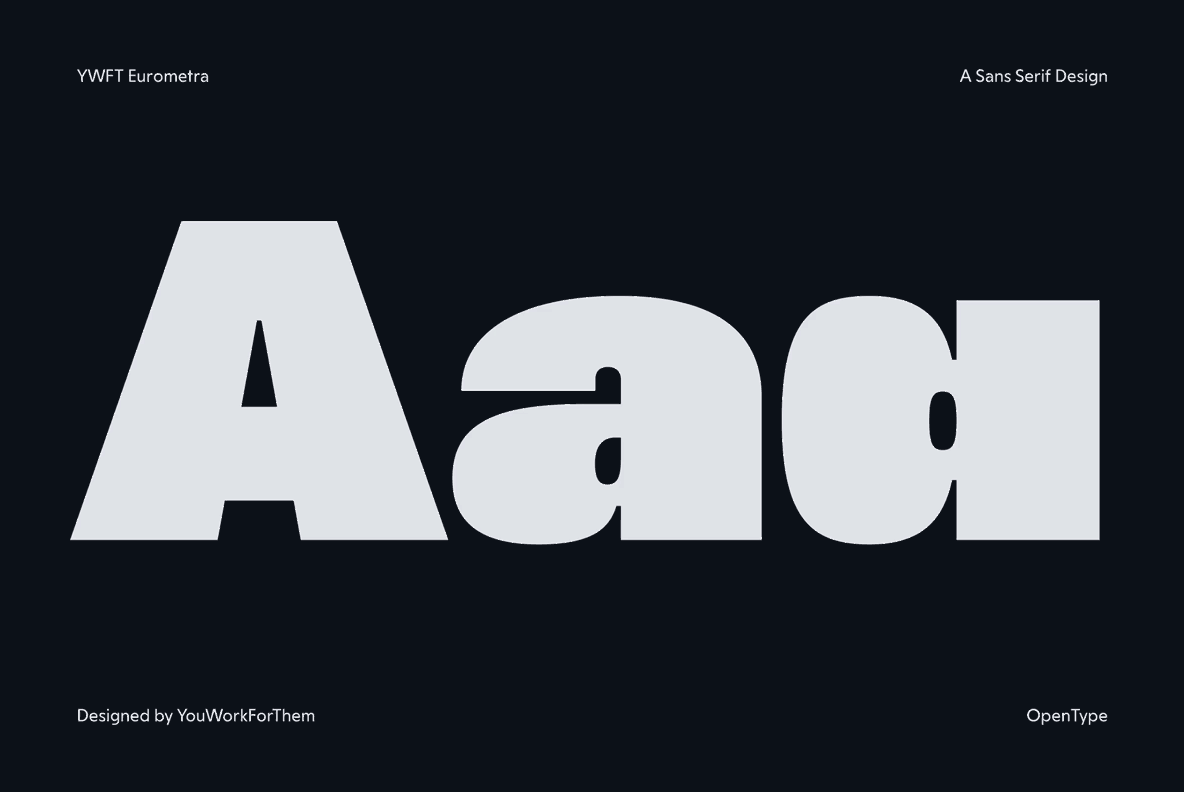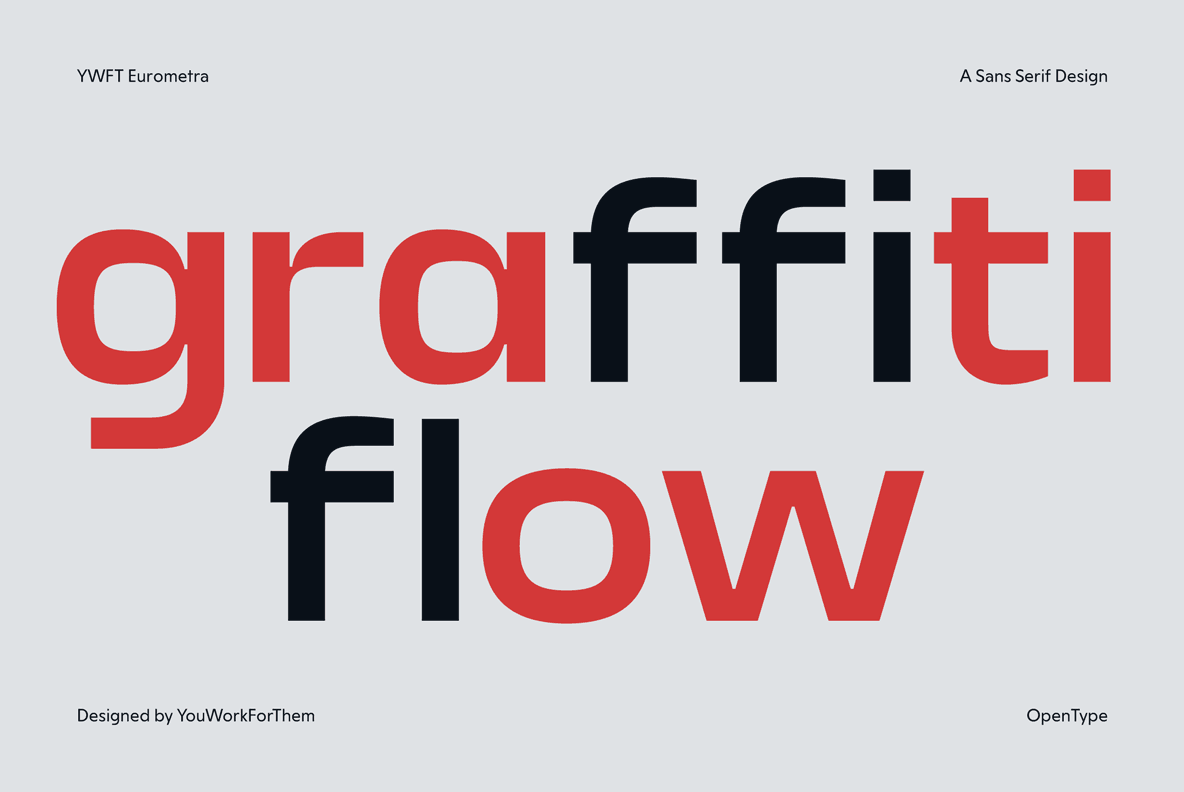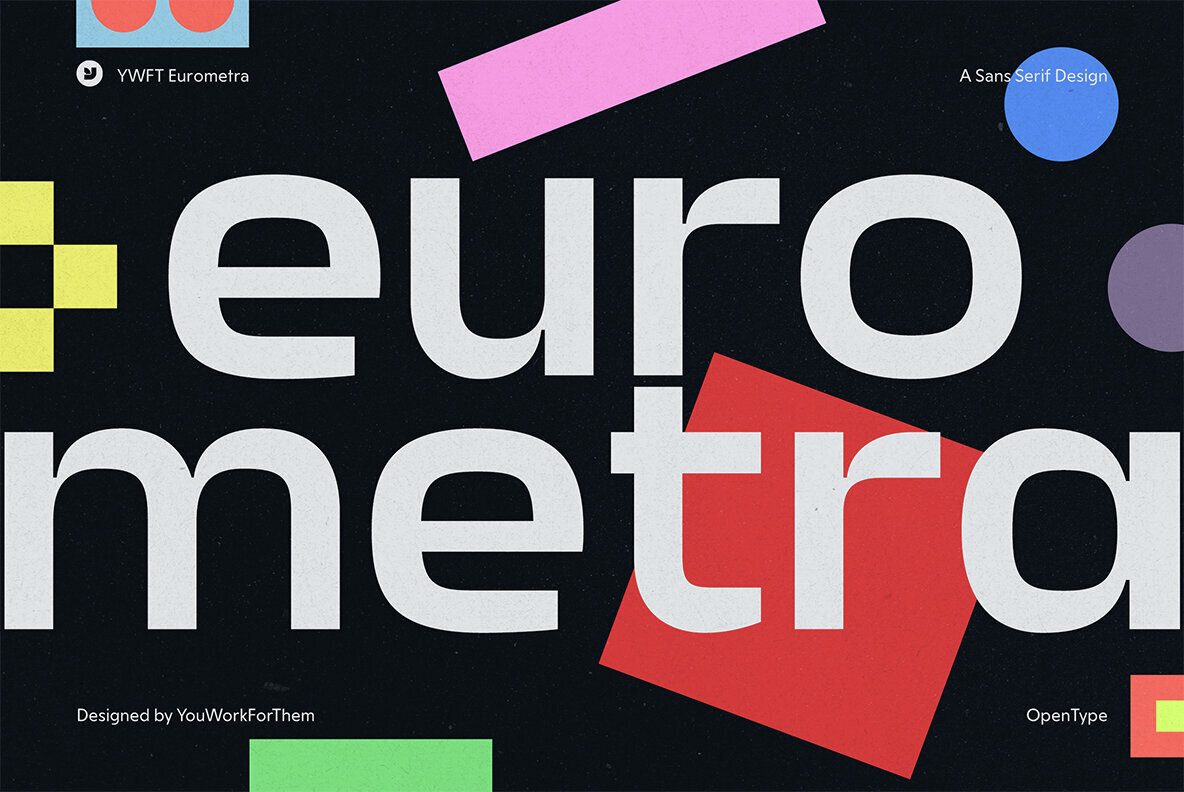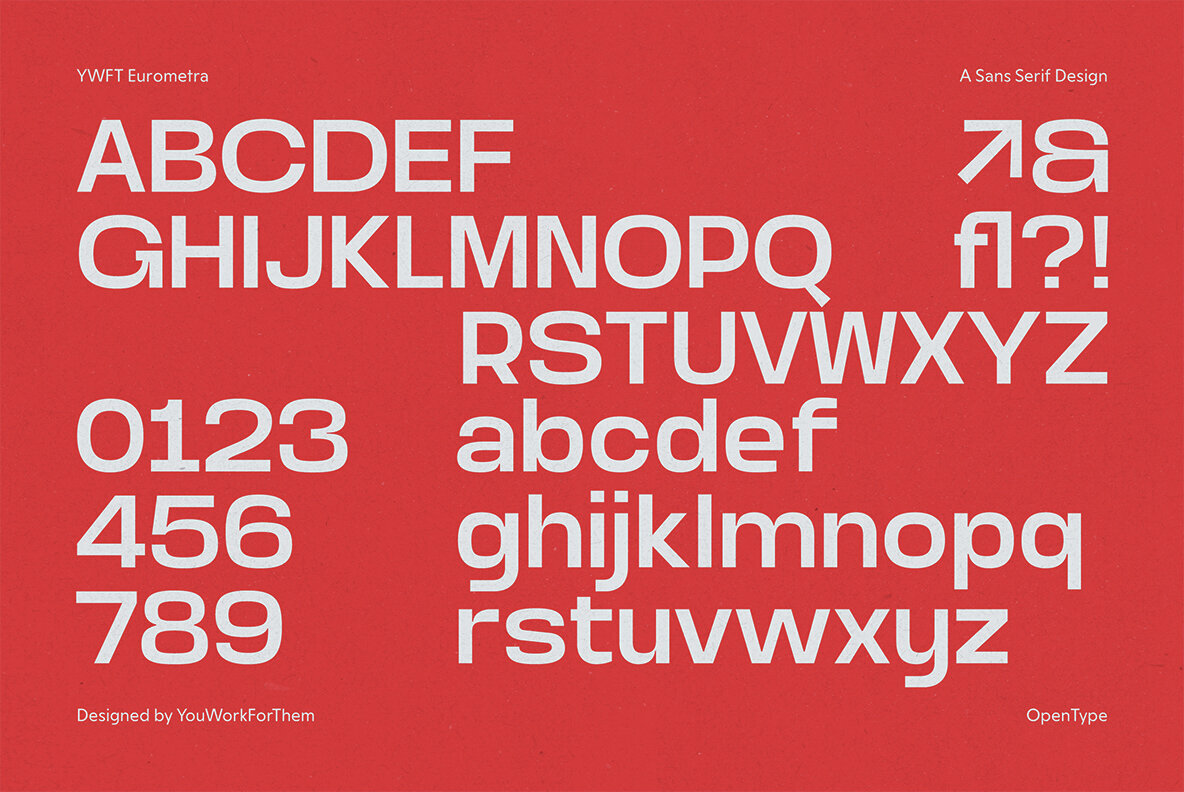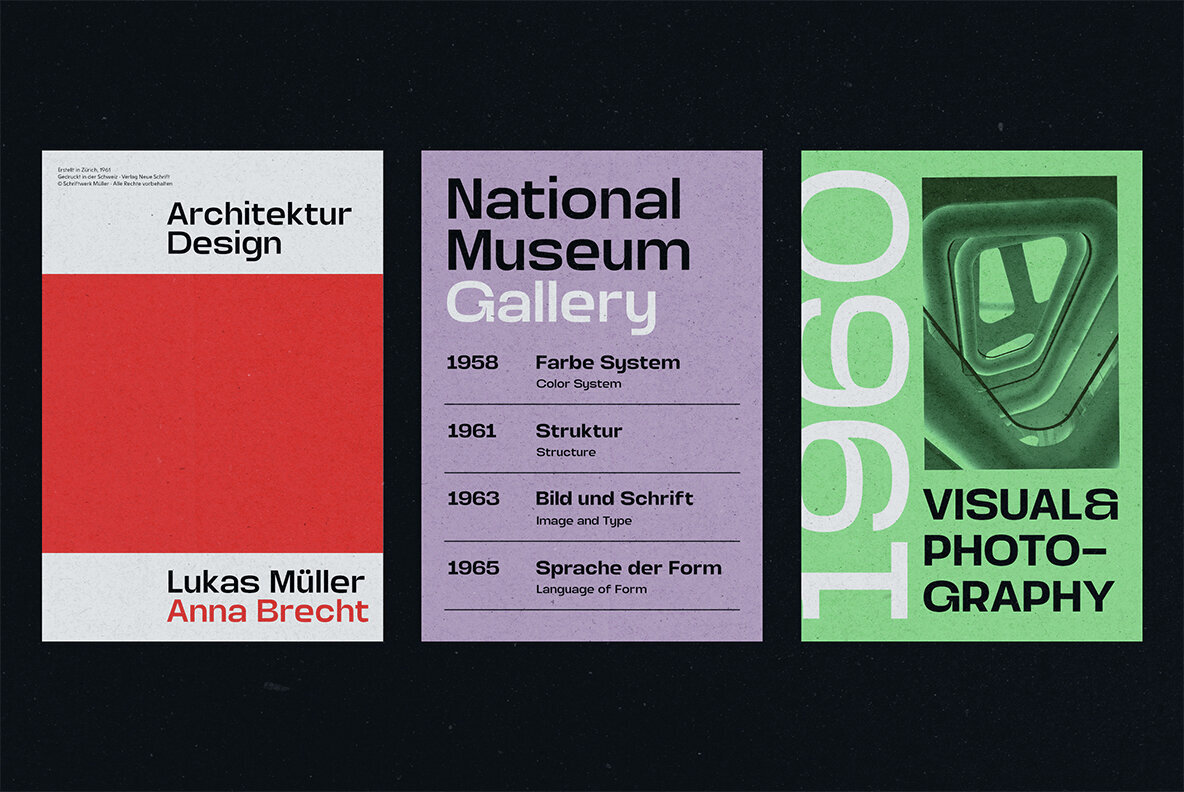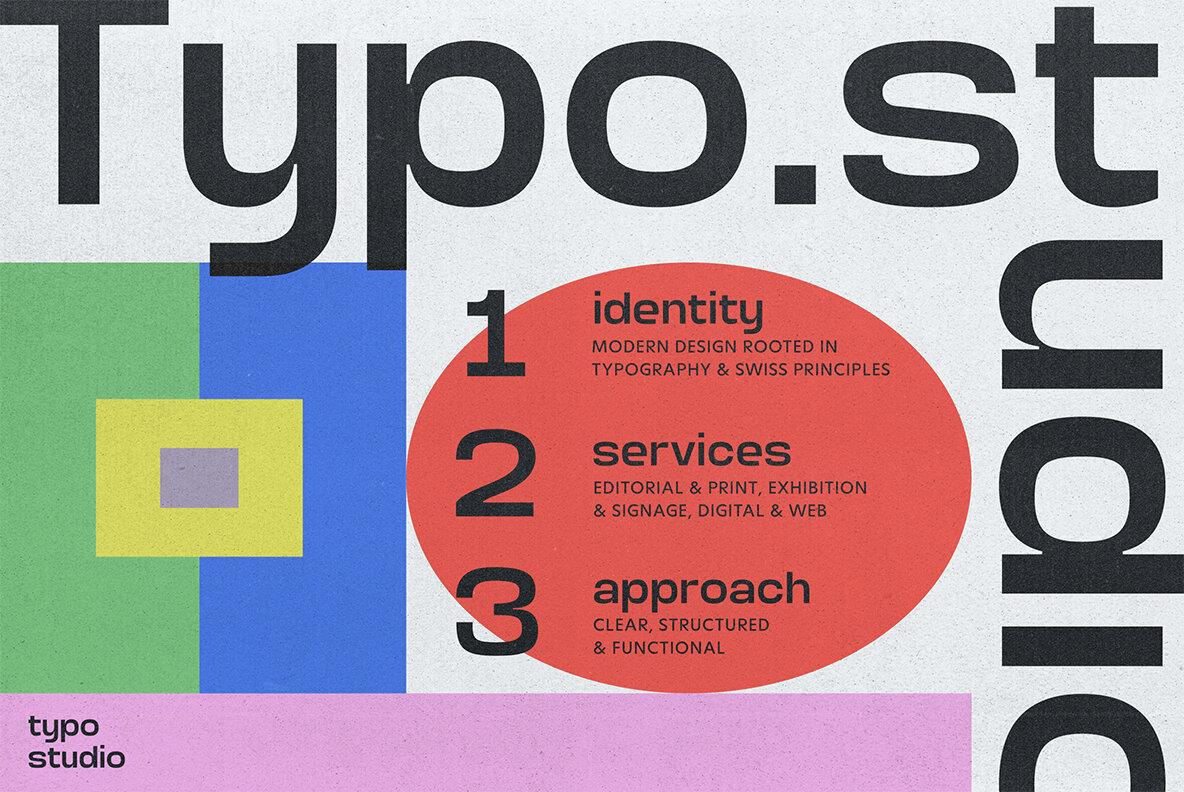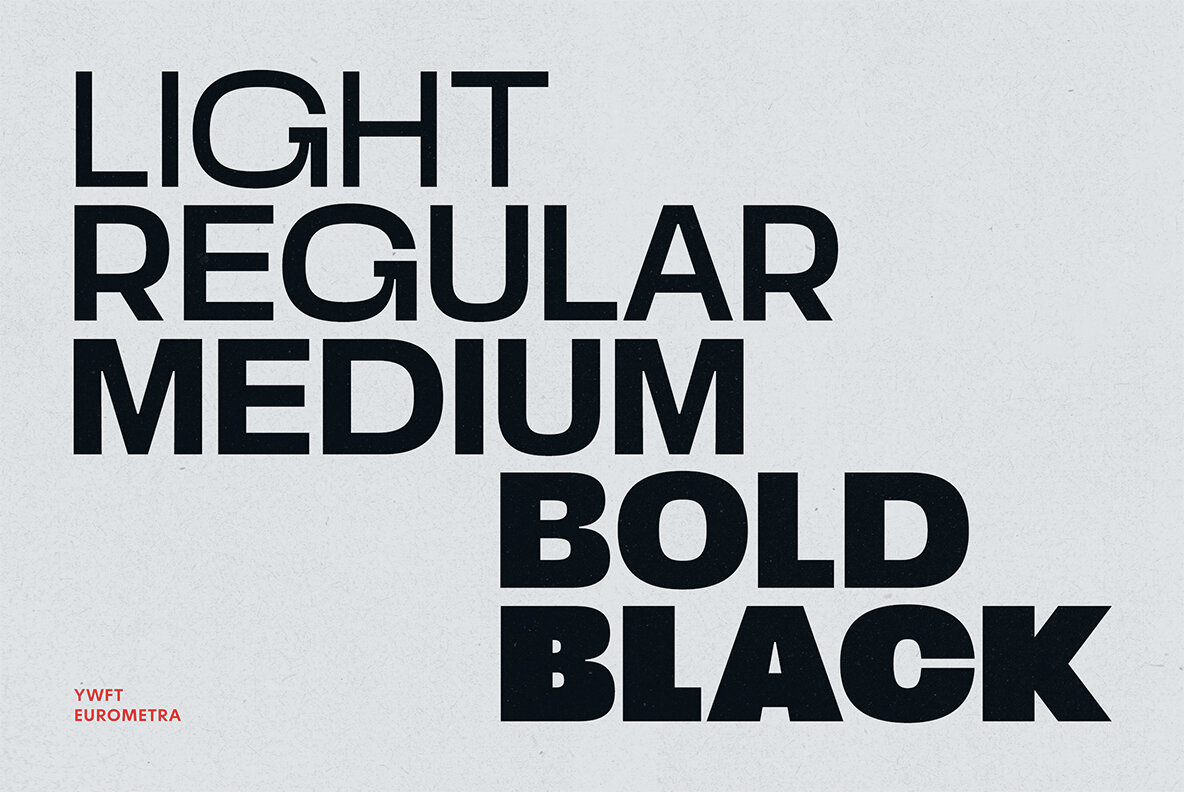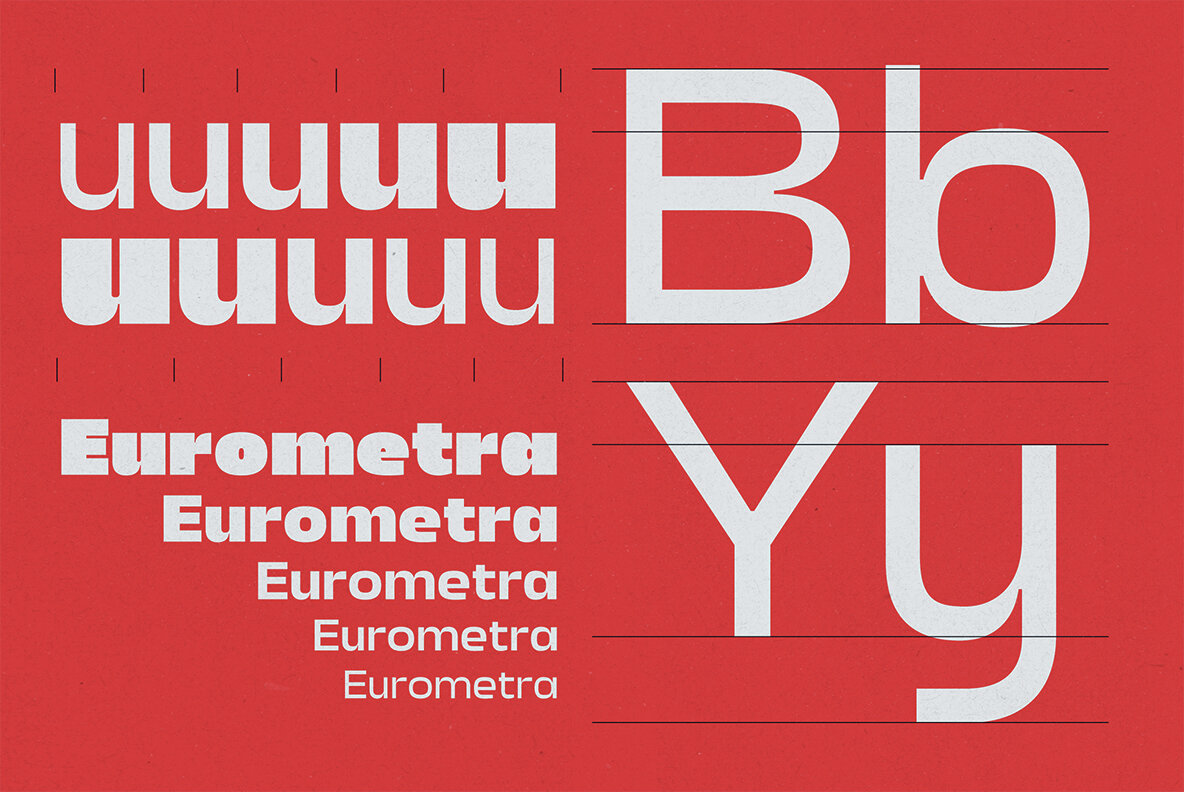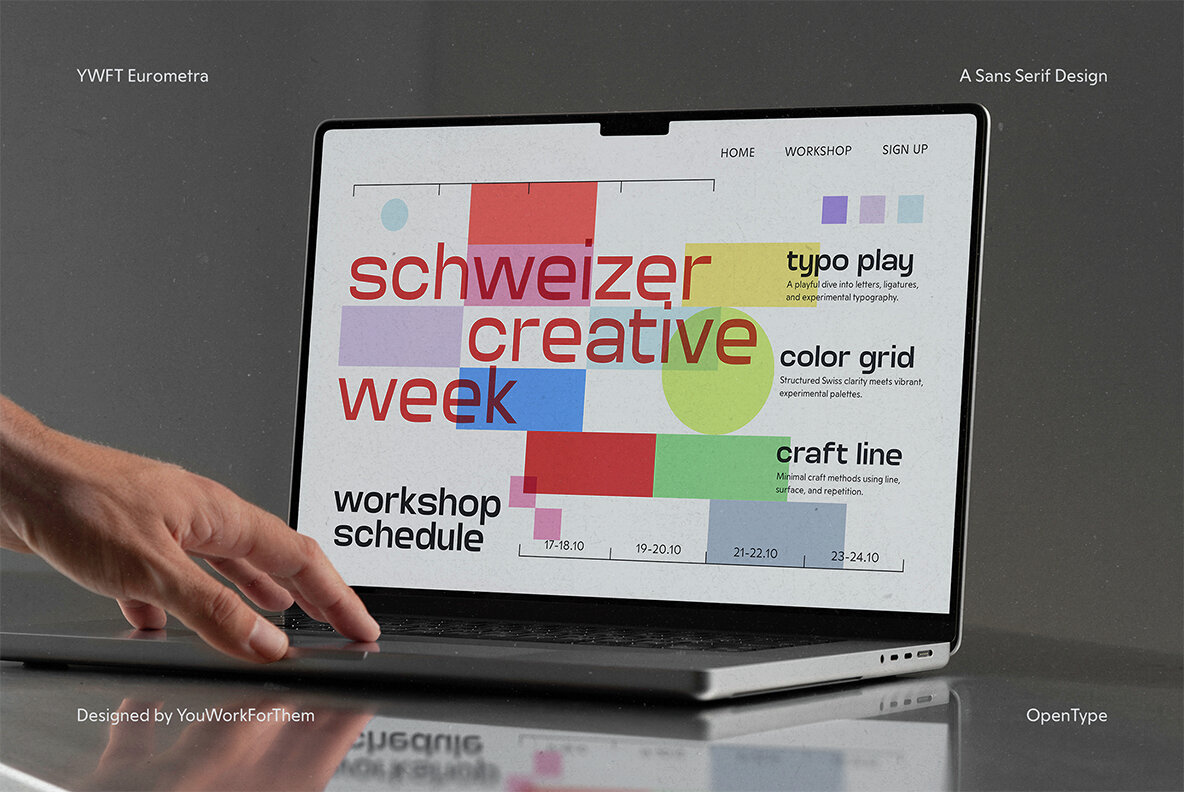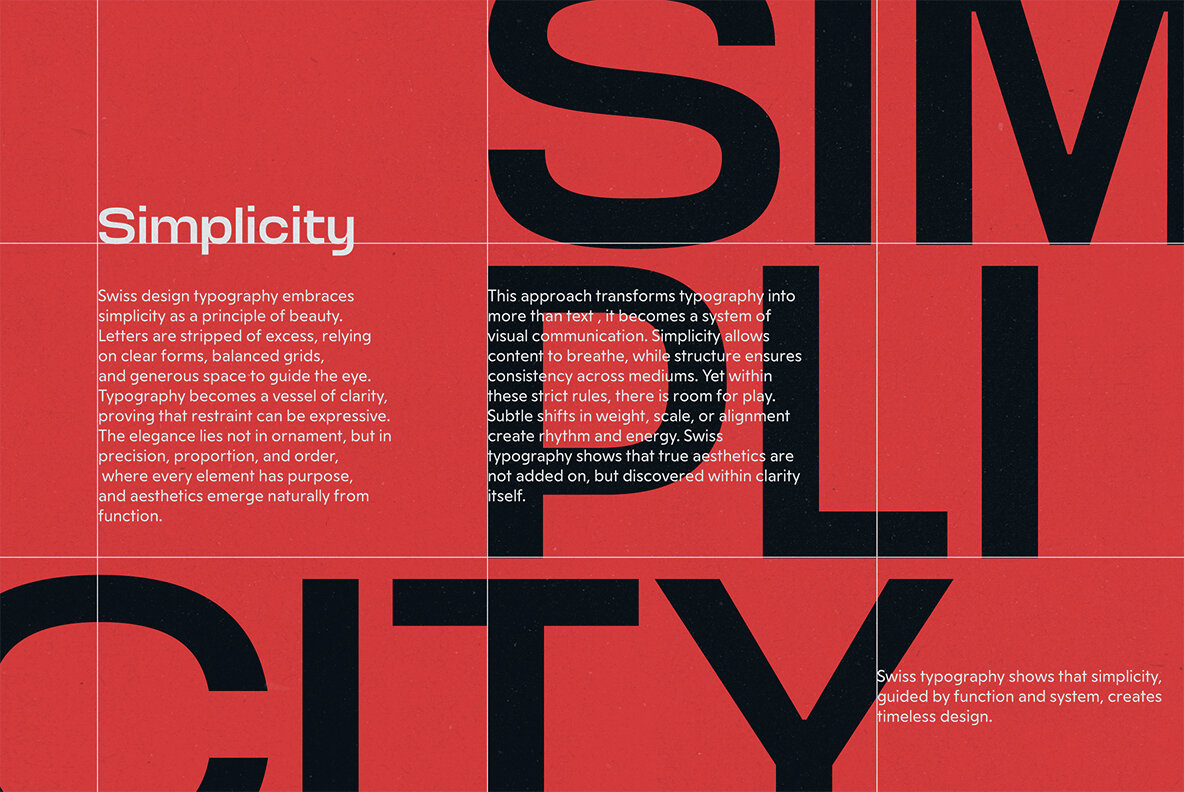
YWFT Eurometra Font
YWFT Eurometra carries the sensibility of European poster design from the 1950s through the 1970s. Its modernist spirit recalls the Dutch traditions of graphic design, evoking the work of celebrated figures such as .... Unlike sans-serifs like Helvetica’s restrained and dull neutrality, Eurometra embraces a sharper grotesque influence, giving it more edge and personality. The uppercase G immediately sets Eurometra apart, with its subtle flair and added personality. Lowercase forms lean geometric, with crisp cuts that become more pronounced as the weights increase. The light weight offers a softer, approachable look suitable for body text, while the black weight pushes into bold, retro-inflected territory, perfect for commanding headlines. Eurometra includes: Stylistic alternates for customized letterforms Ligatures for smoother word shaping Fractions and extended stylistic sets for versatility across projects The full family includes five carefully designed weights, available only at YouWorkForThem under a easy and affordable one-time licensing model. Unlike platforms that require ongoing subscription fees, YouWorkForThem offers straightforward, affordable licensing for personal, commercial, and enterprise needs—plus cashback rewards on every purchase. Cultural and institutional design with a mid-century European feel Editorial layouts requiring modernist clarity Retro-inspired posters and headlines that demand impact Digital branding projects seeking a geometric yet human tone Eurometra isn’t just a revival of the past—it’s a continuation of modernist typography’s enduring relevance. By balancing geometry with warmth, it offers designers a flexible tool that nods to history while staying entirely usable in contemporary contexts. Additional products used for slideshow images:YWFT Eurometra Font: A Modernist Sans with European Character
Details That Distinguish the Typeface
Features for Contemporary Design Use
Where Eurometra Font Works Best
A Typeface with History and Future